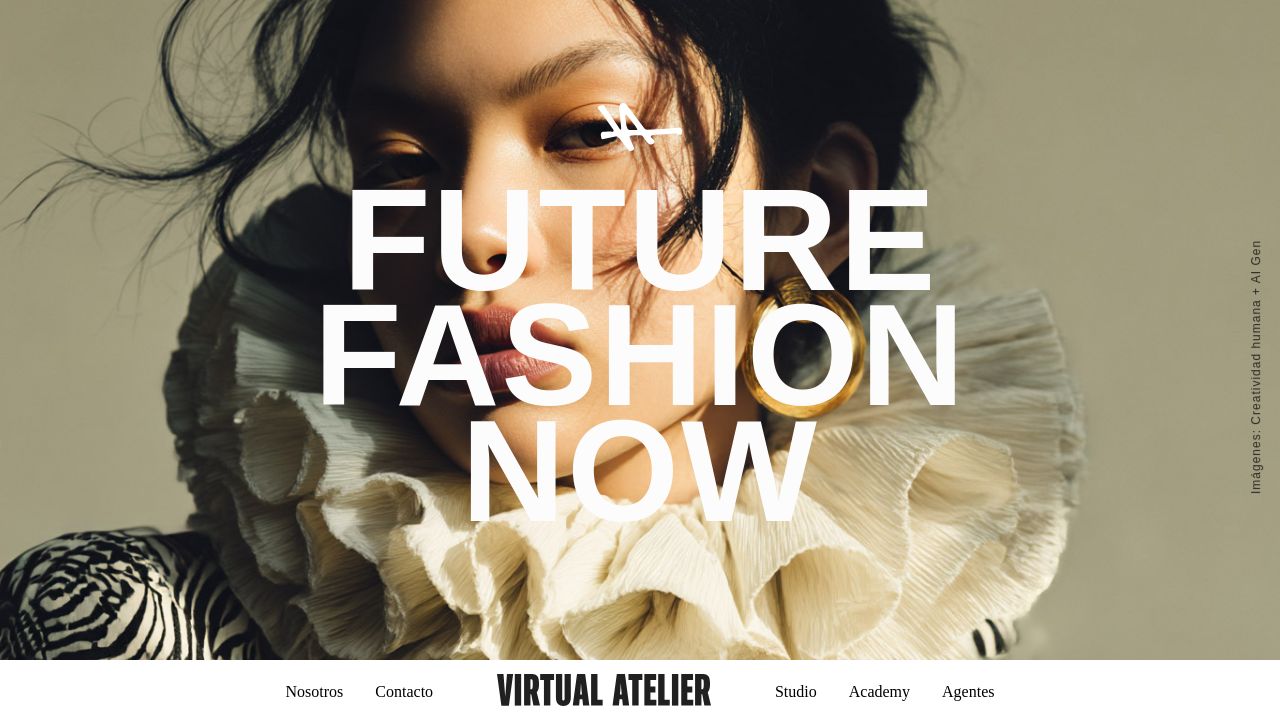
virtualatelier.ai is at the forefront of the fashion industry, leveraging generative AI to transform visual products. The site prominently features Roboto Flex, a custom font that enhances readability and modern aesthetics, reflecting the brand's innovative approach. This choice of typeface, along with fallback options like Roboto and Helvetica Neue, suggests a commitment to clarity and accessibility, catering to a diverse audience seeking to explore the future of fashion.
The primary font used on virtualatelier.ai is Roboto Flex, with a weight of 400. Fallback fonts include Roboto, Helvetica Neue, Segoe UI, Ubuntu, and Cantarell.
Roboto Flex offers a unique versatility compared to standard Roboto and other system fonts. Its custom design allows for better adaptability across different screen sizes and resolutions.
Roboto Flex is available in multiple weights, including a 400 weight, which is used on virtualatelier.ai. This flexibility allows designers to create a hierarchy in typography while maintaining a cohesive look.